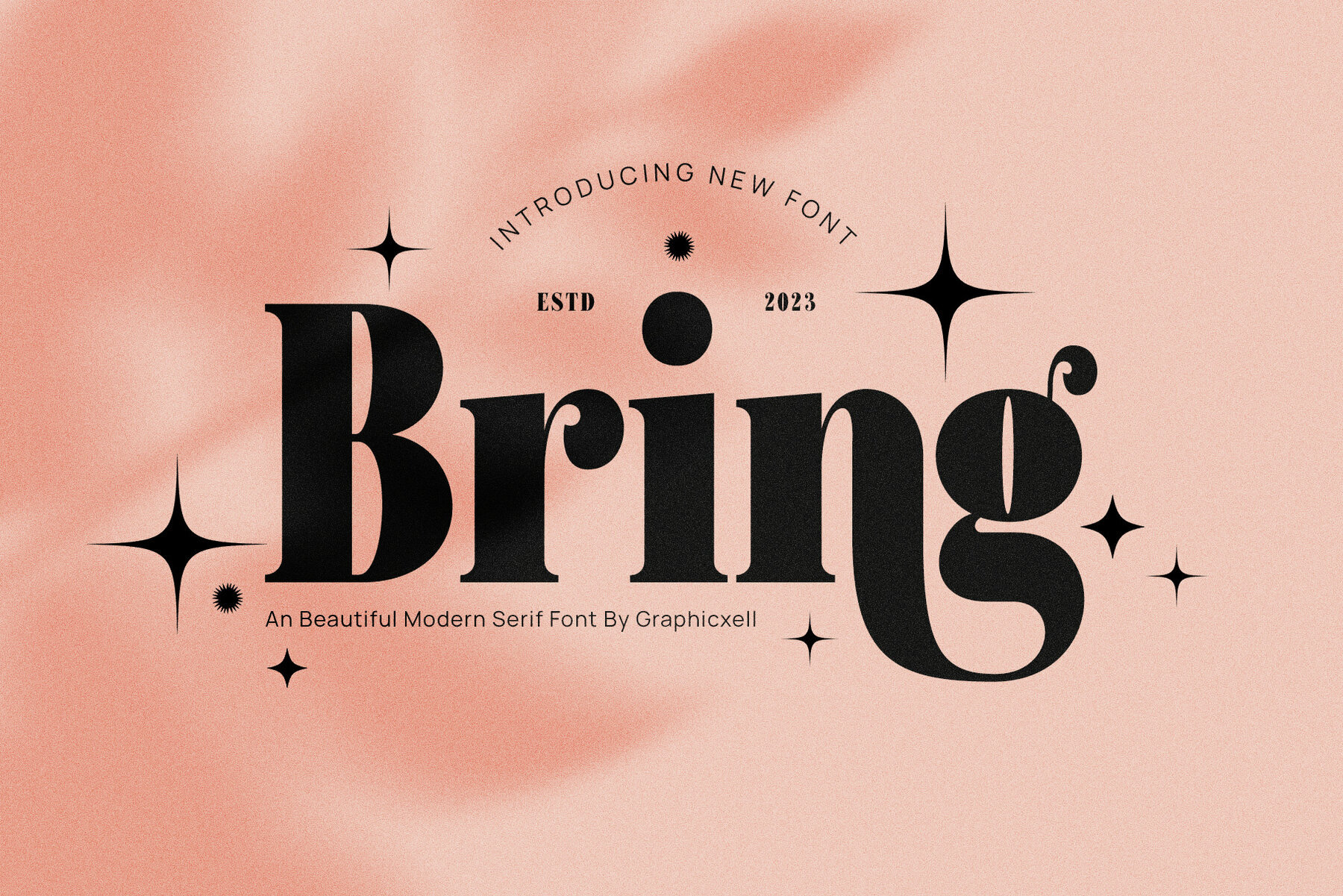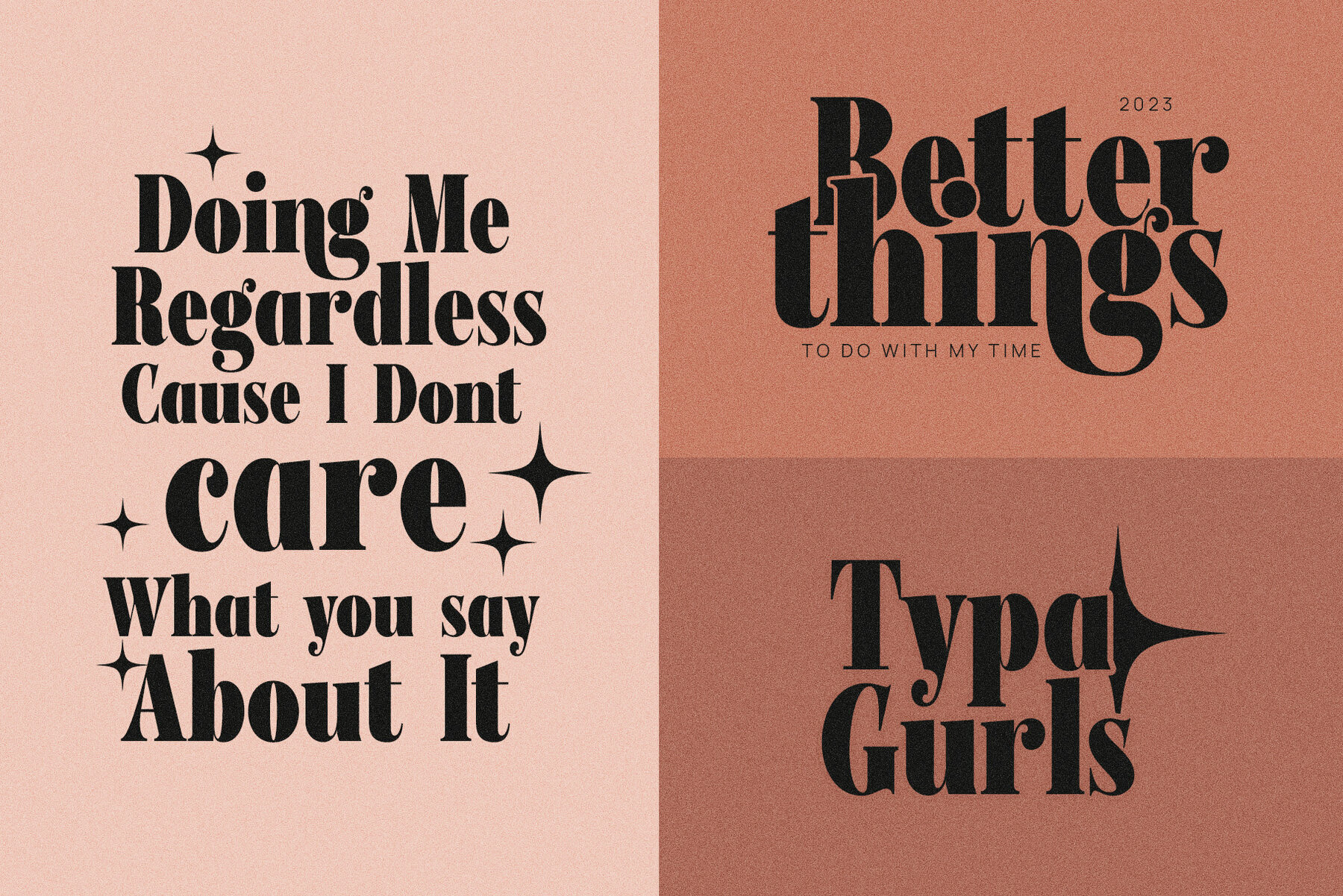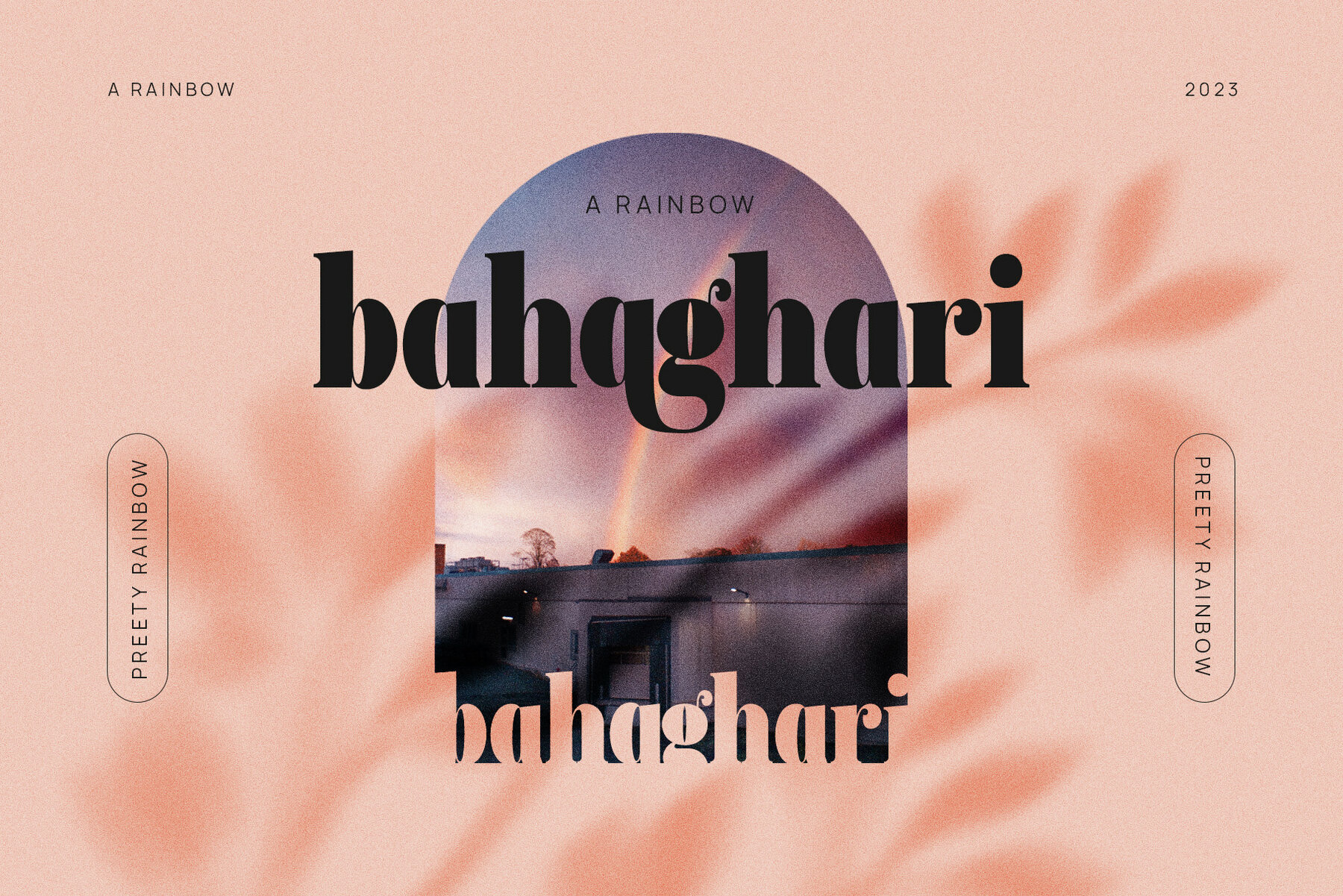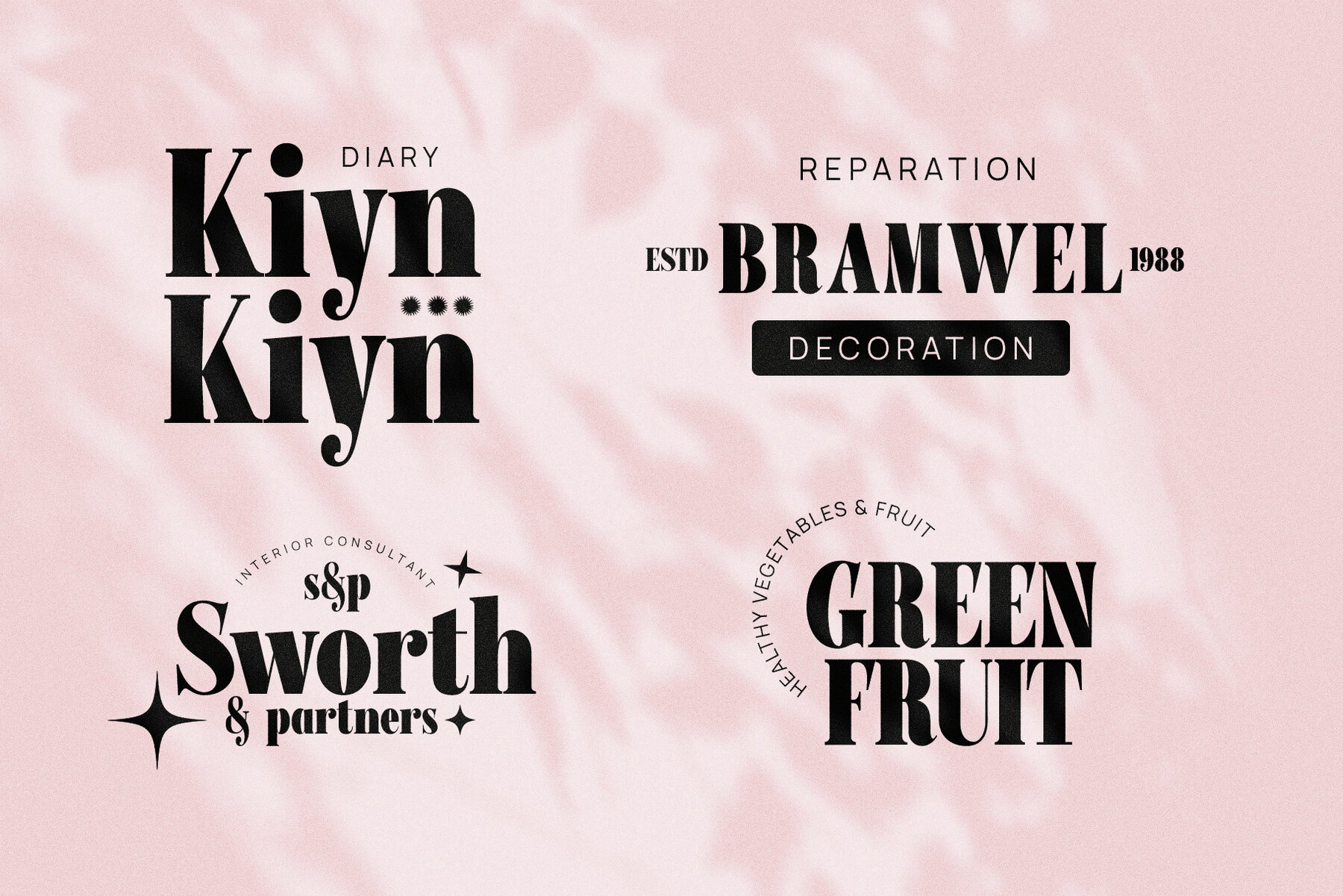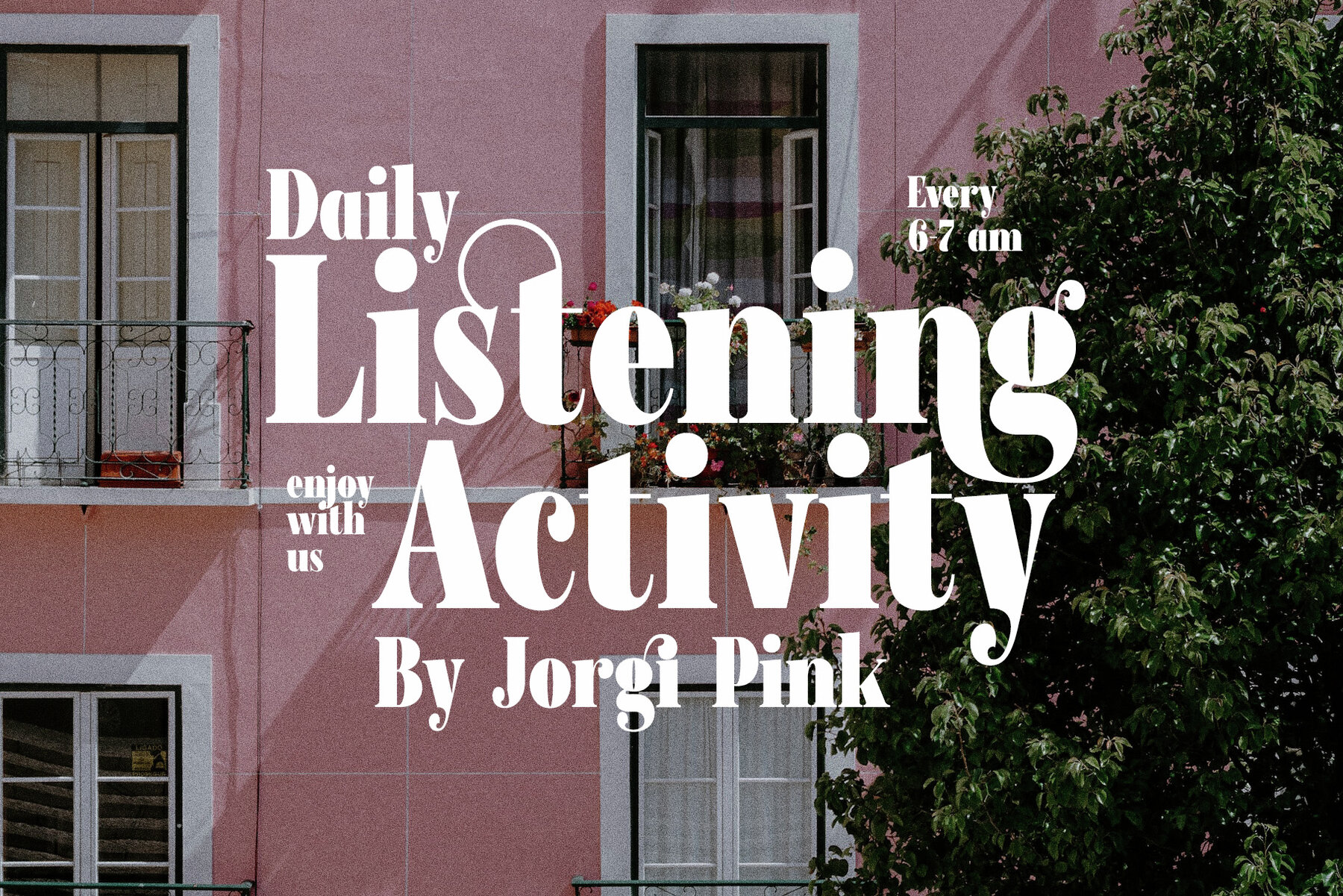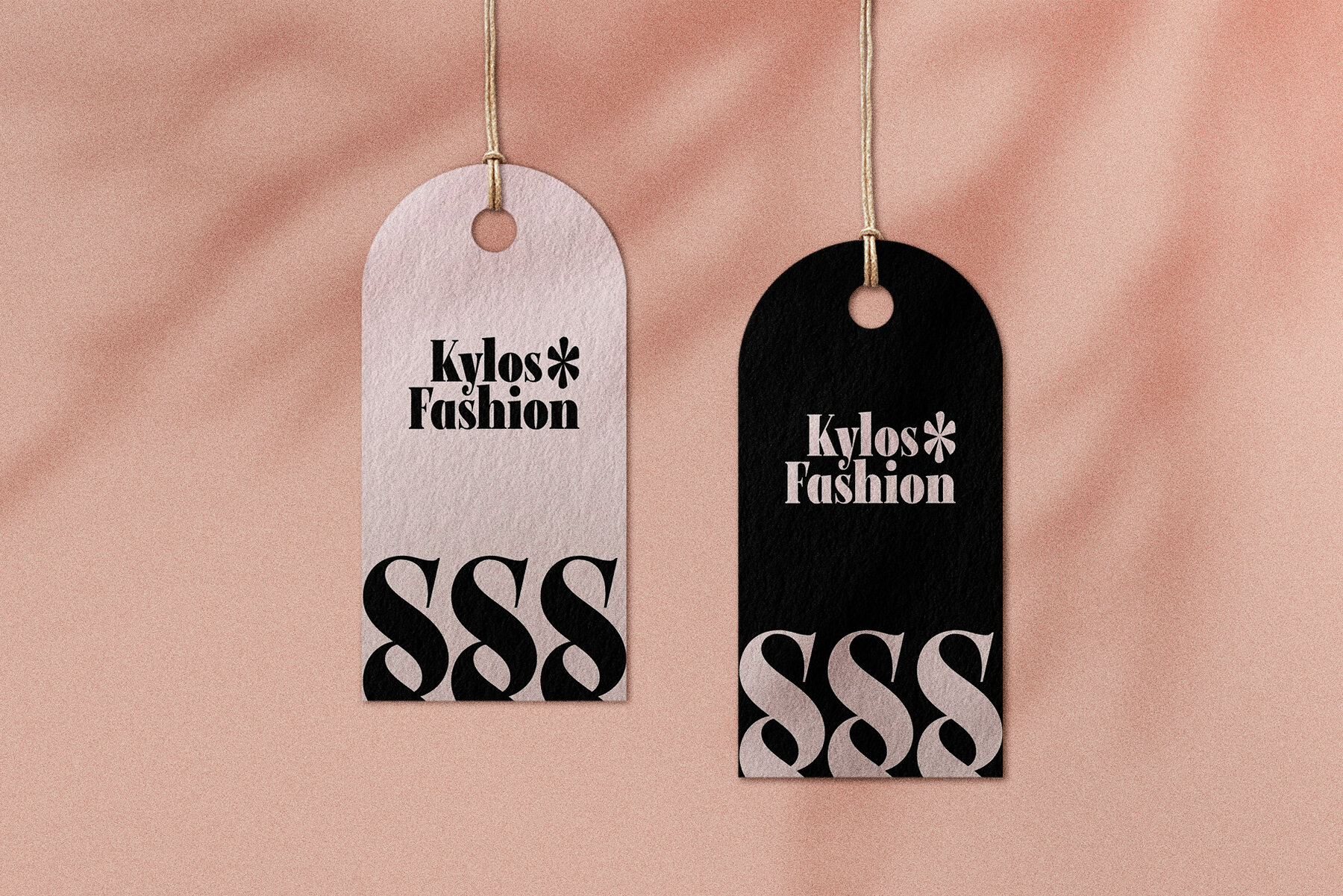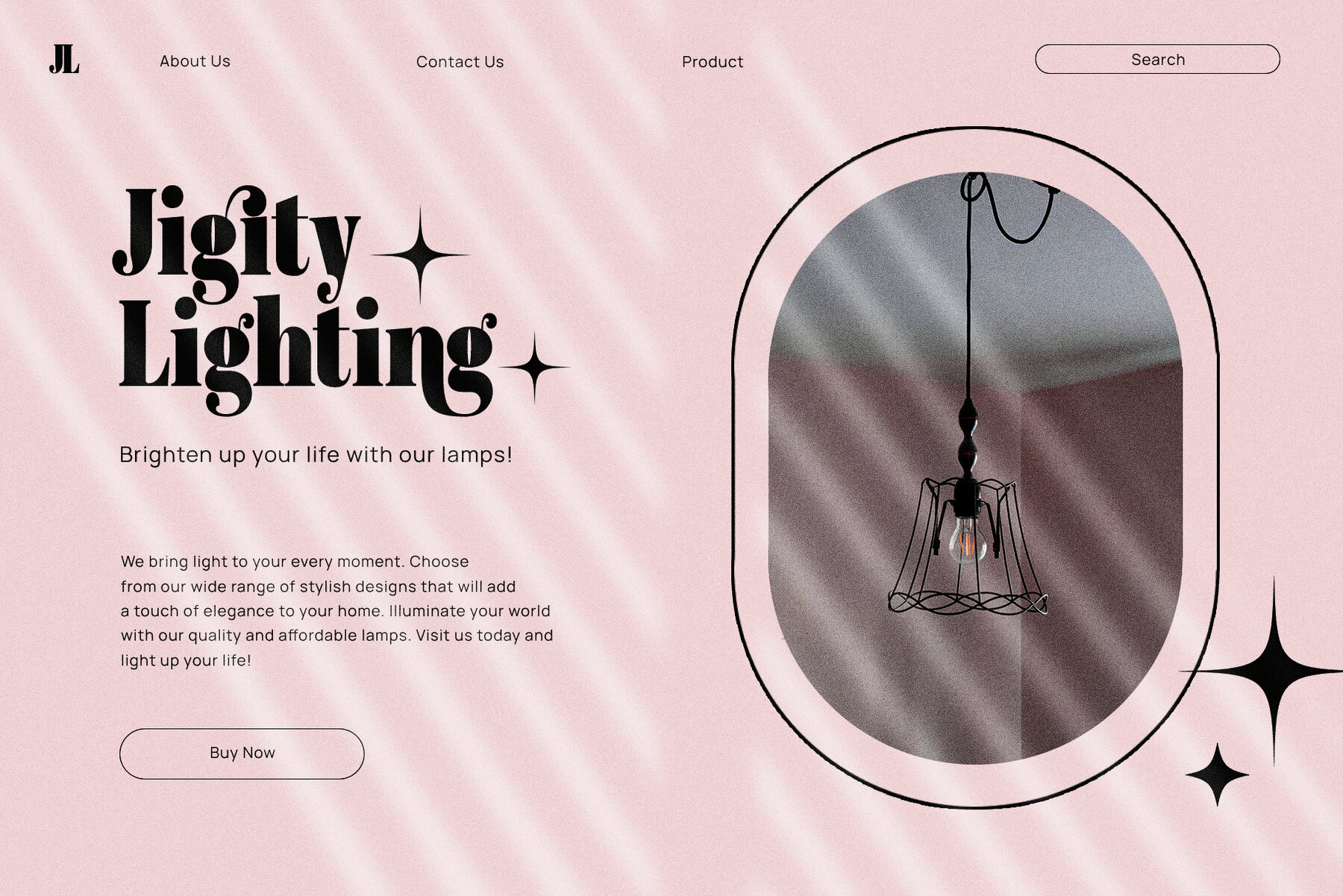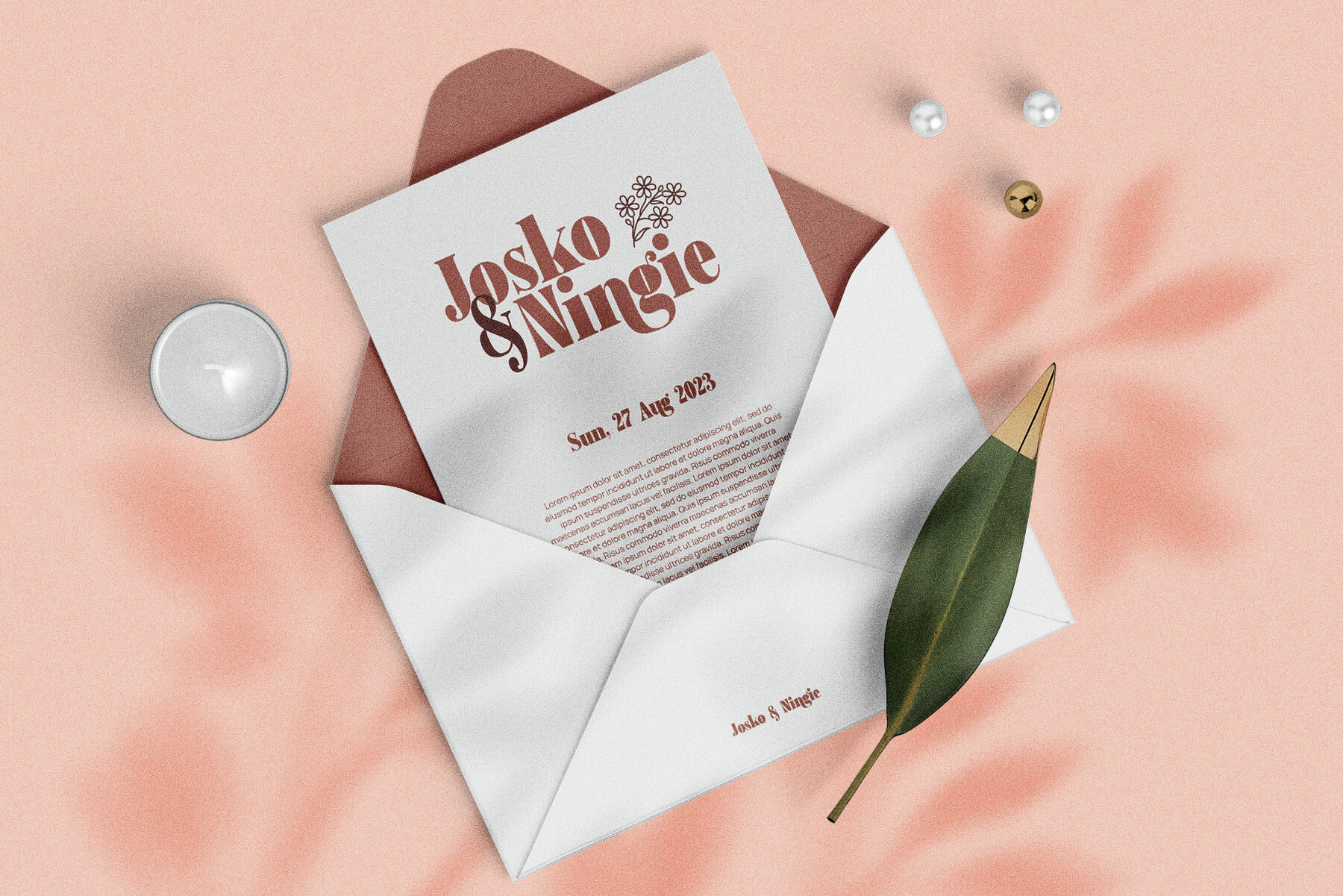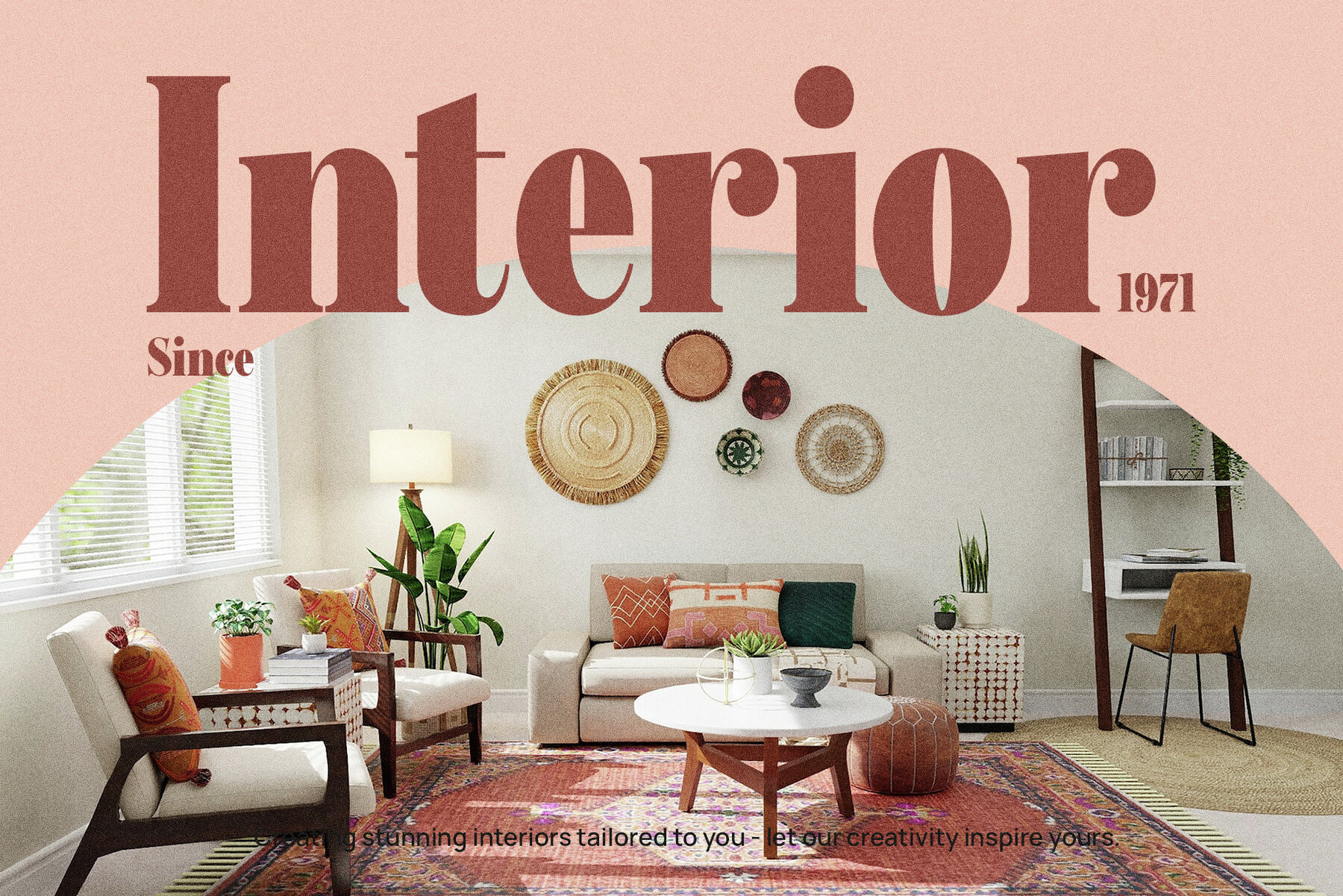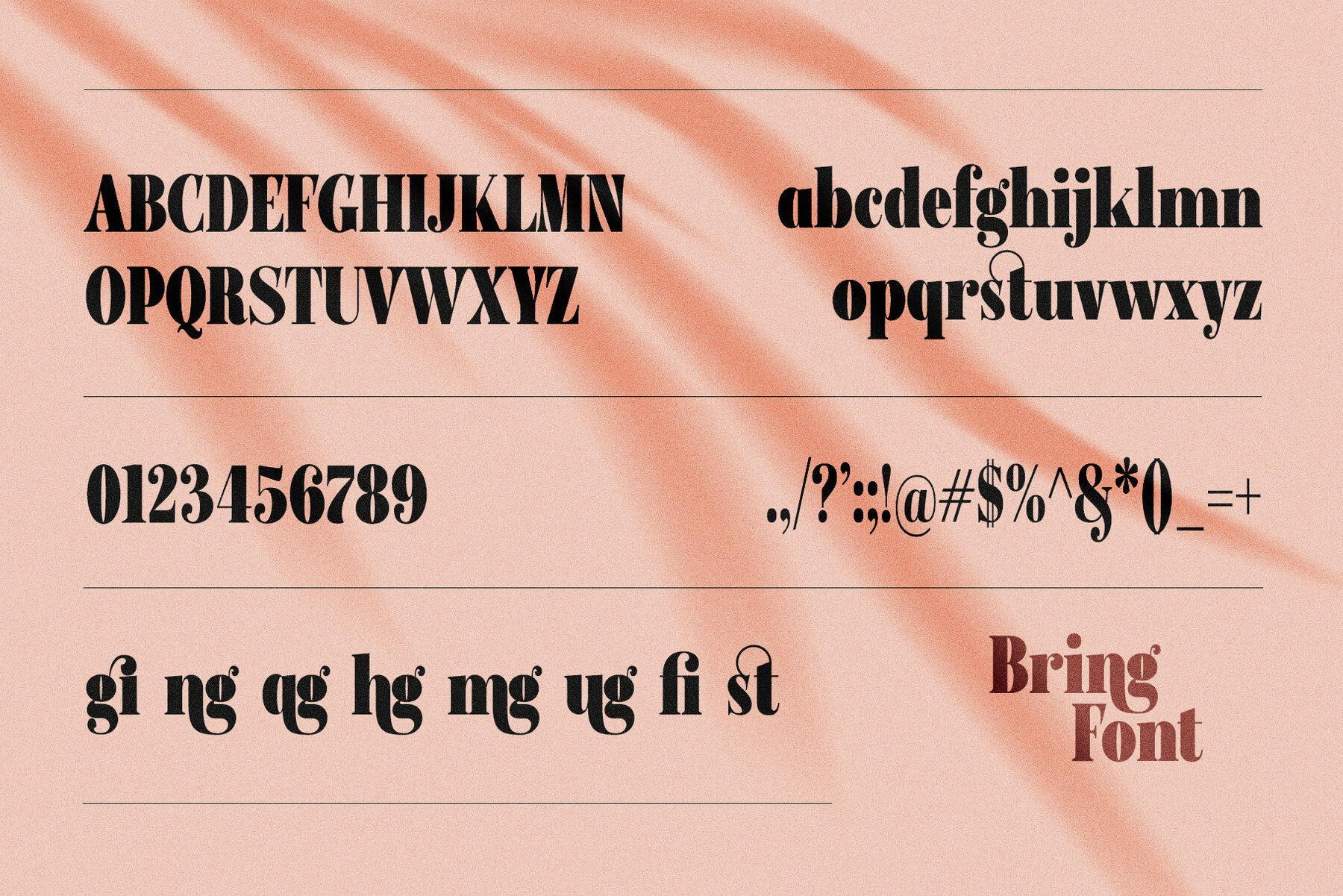
Bring Font
Bring Regular
Bring is a distinctive serif typeface that marries elegance with a modern touch, making it perfect for branding and logo designs. This refined font is ideal for various projects, including logos, wedding designs, social media posts, advertisements, product packaging, and more. With a high level of readability, Bring ensures your designs are both functional and stylish. For optimal use of Bring, we recommend utilizing Adobe Illustrator or Adobe Photoshop. Should you have any questions, please feel free to reach out for assistance.Bring: Elegant Serif Typeface for Versatile Designs